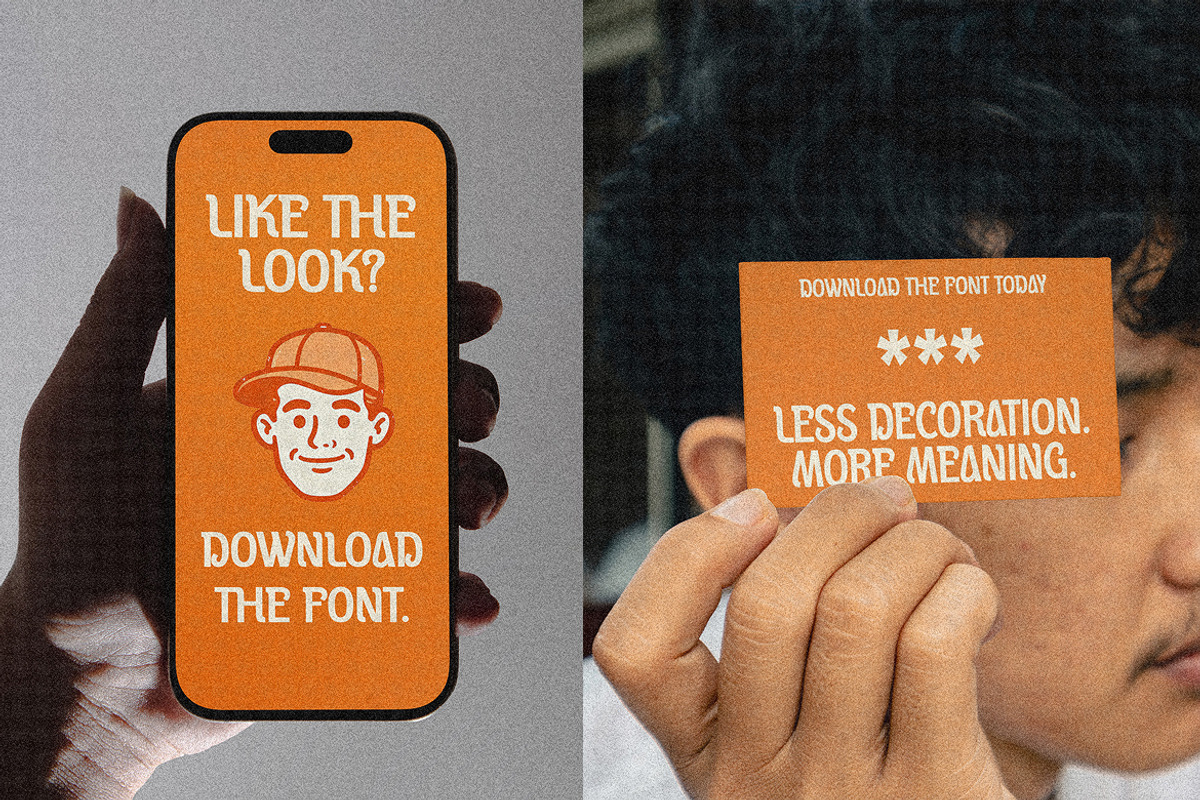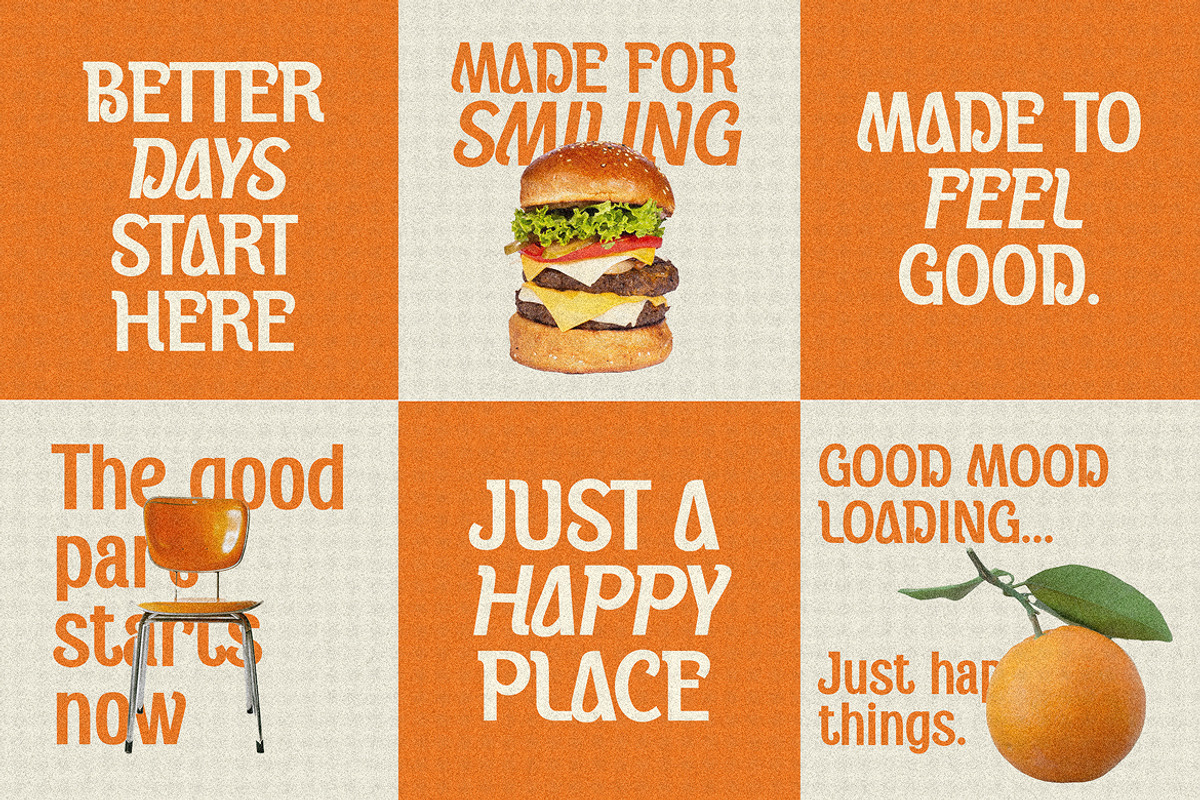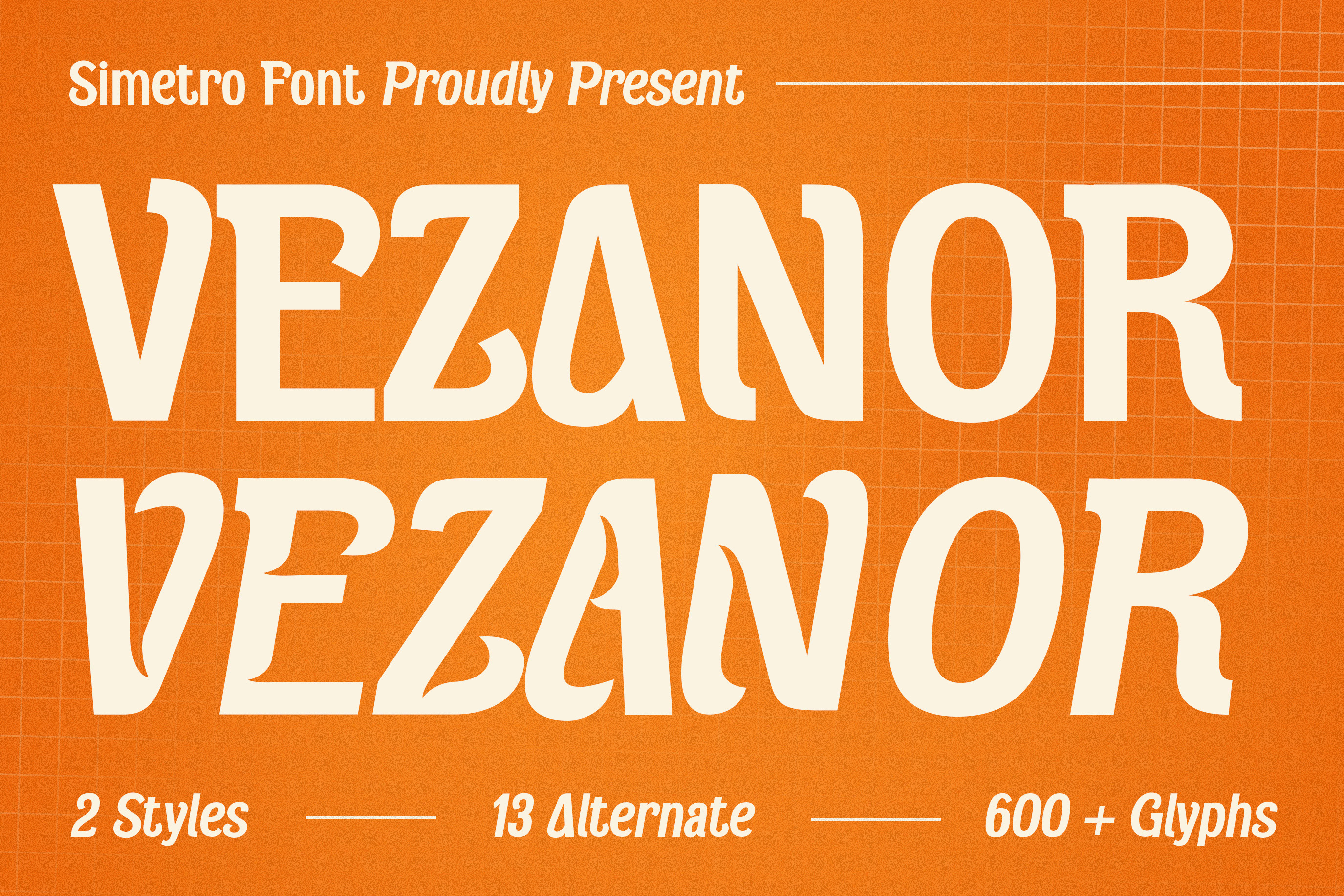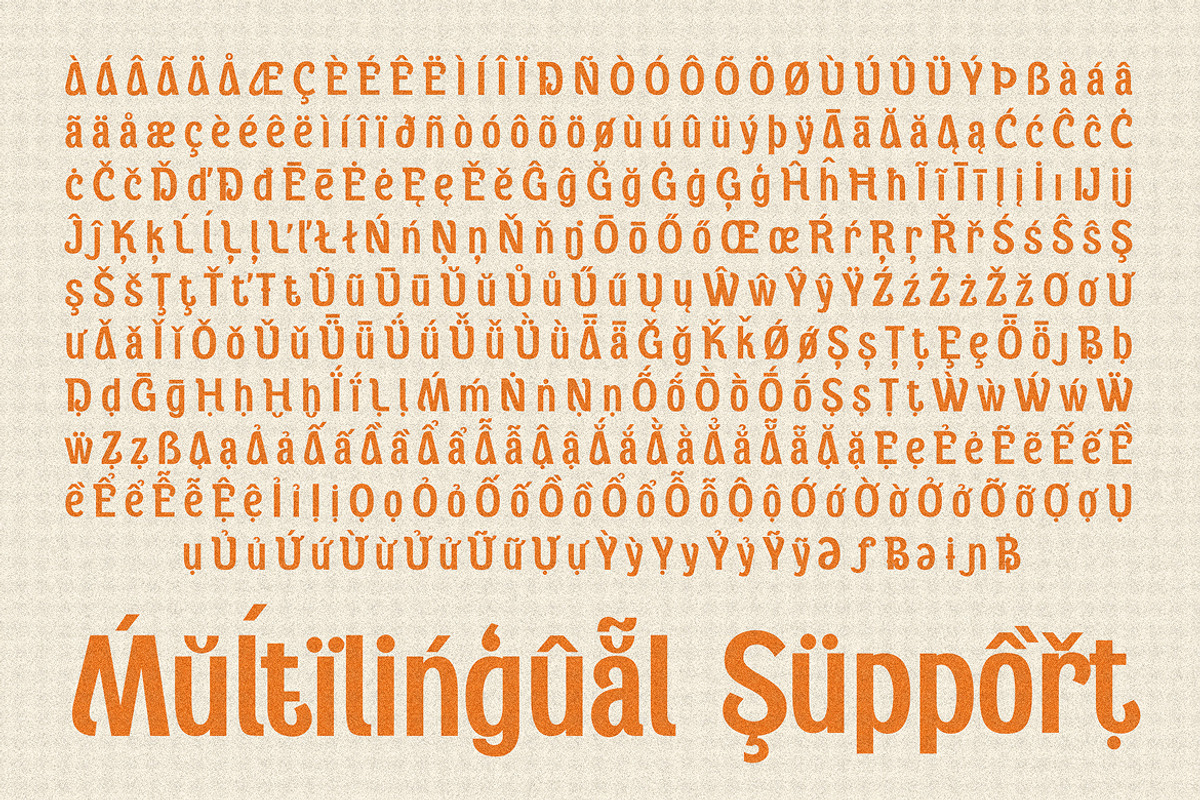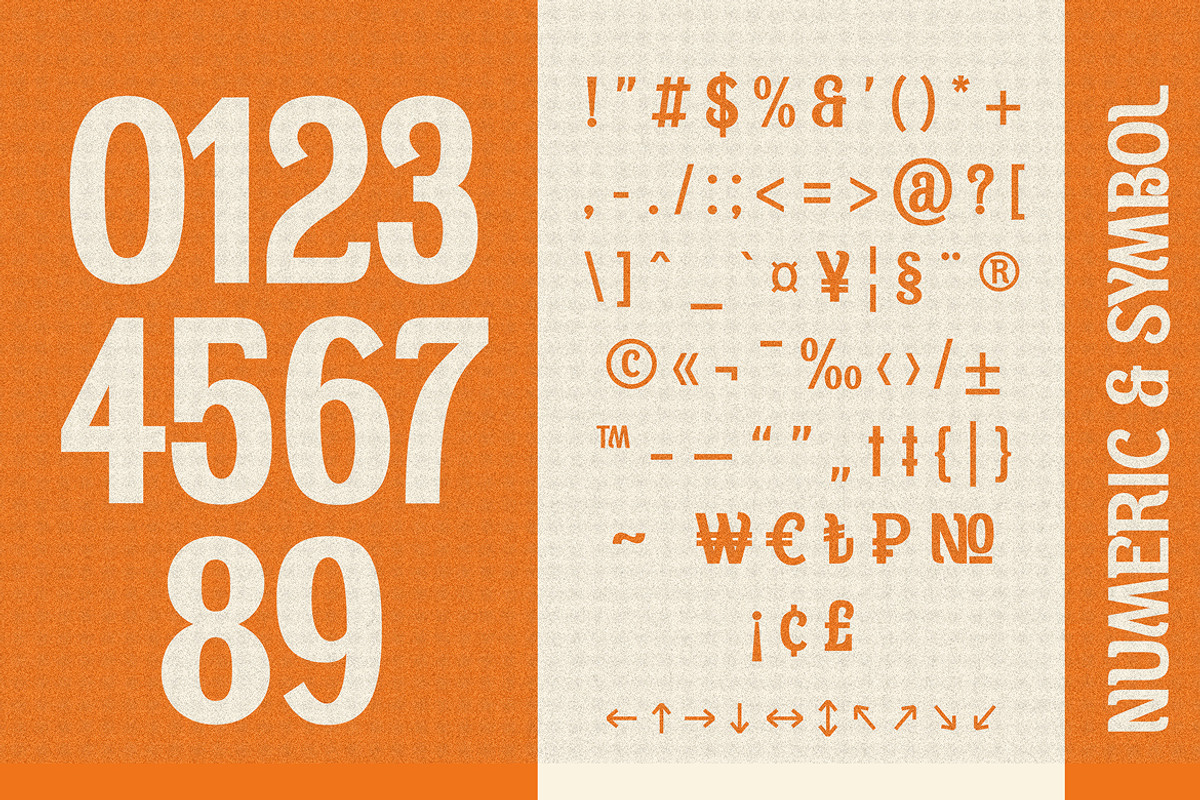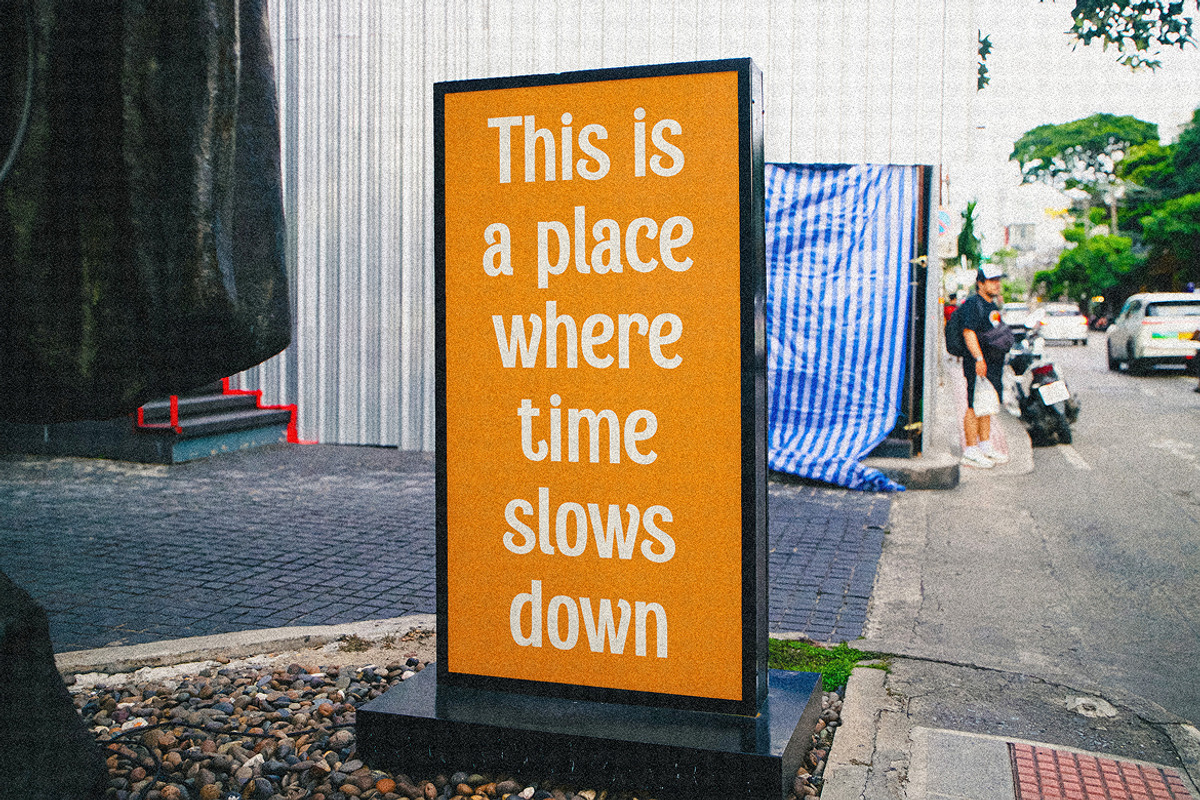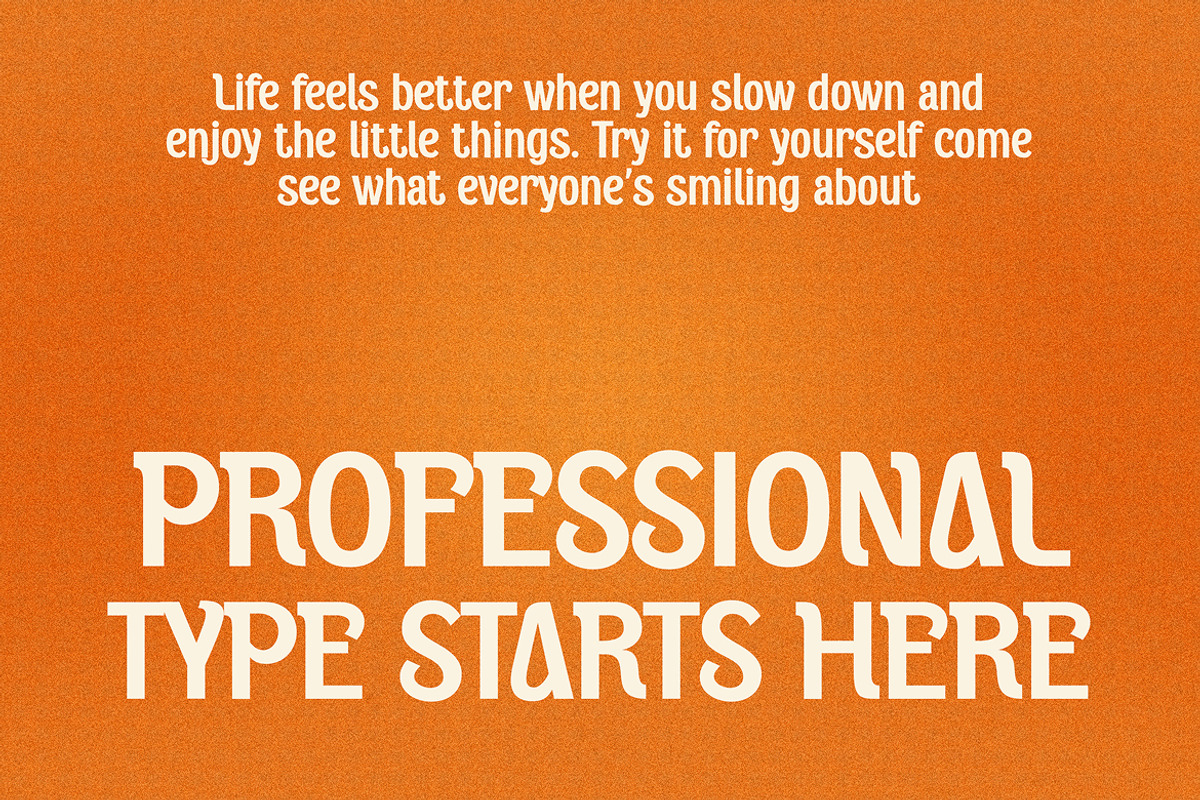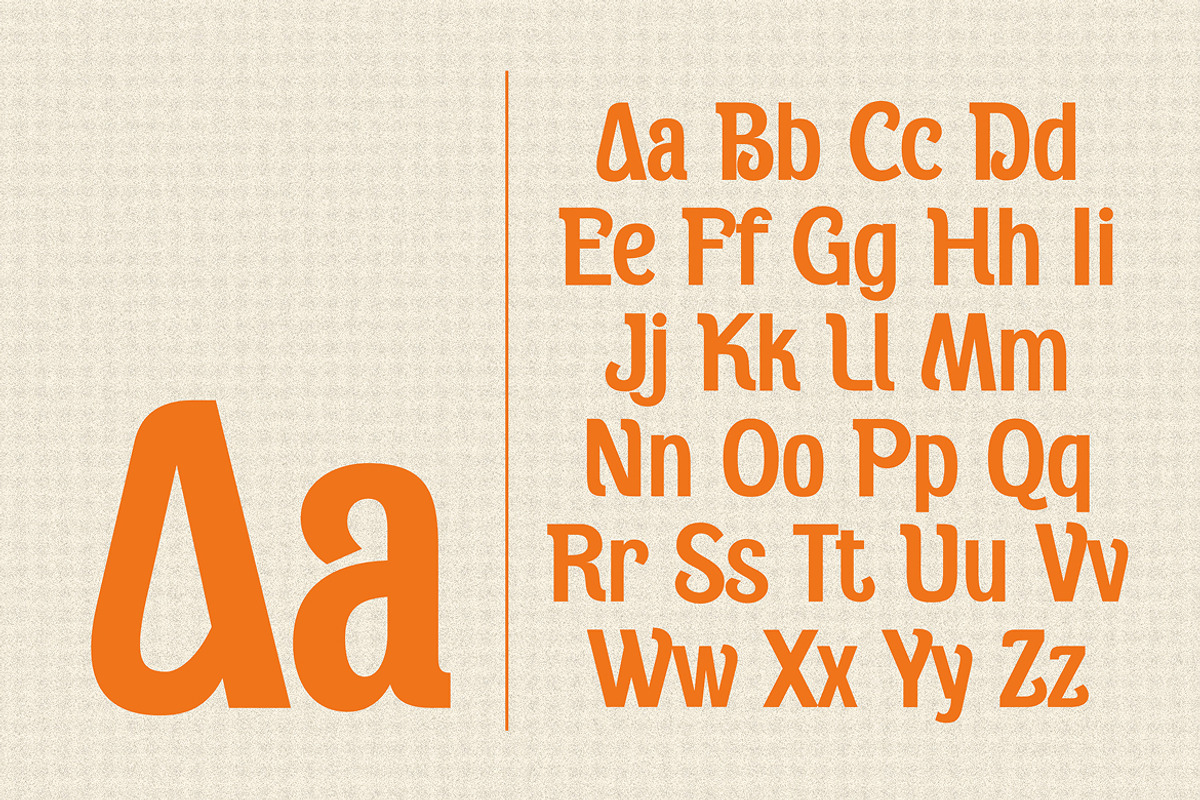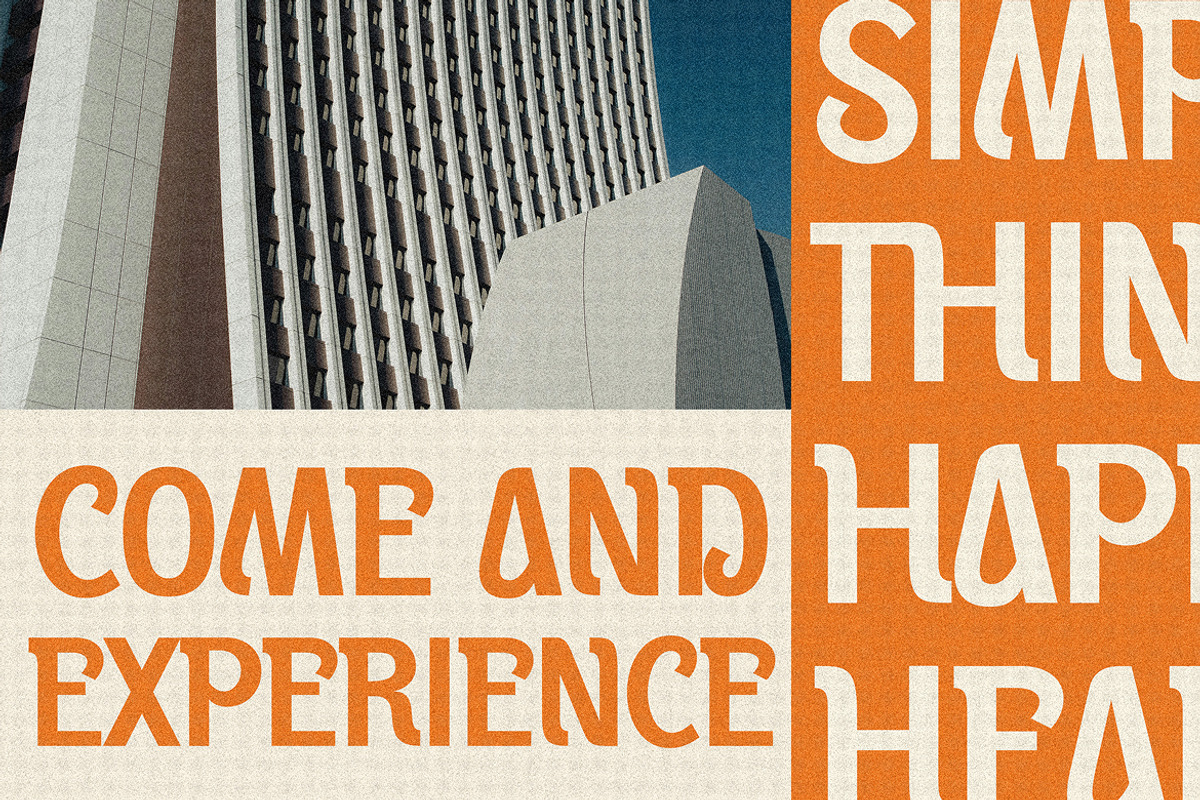
Vezanor - Sans Serif Font Display
Vezanor is a modern serif display font crafted to balance professional clarity and human warmth. Featuring soft curves, confident strokes, and subtly playful letterforms, Vezanor delivers a clean yet expressive typographic voice that feels welcoming, polished, and contemporary.
This font is designed to perform beautifully in headlines, branding systems, editorial layouts, posters, packaging, and lifestyle visuals. Its slightly rounded details and calm rhythm make it ideal for projects that want to feel approachable, trustworthy, and premium at the same time.
With strong readability and a distinctive personality, Vezanor works perfectly for creative studios, modern brands, wellness products, cafes, magazines, and digital content. Whether used boldly in large titles or paired with minimal layouts, Vezanor adds character without losing professionalism.
Vezanor is where modern design meets comfort clean, expressive, and effortlessly stylish.